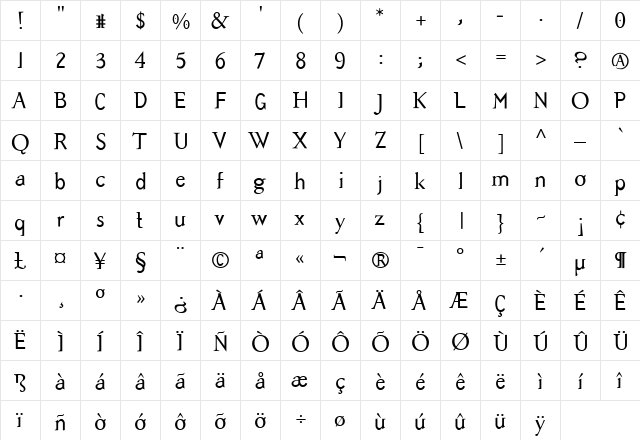
Missive Medium
Design Context for Missive Typeface
Missive offers clean, dependable letterforms without strong stylistic allegiance, making it a practical choice for designers who need flexibility.